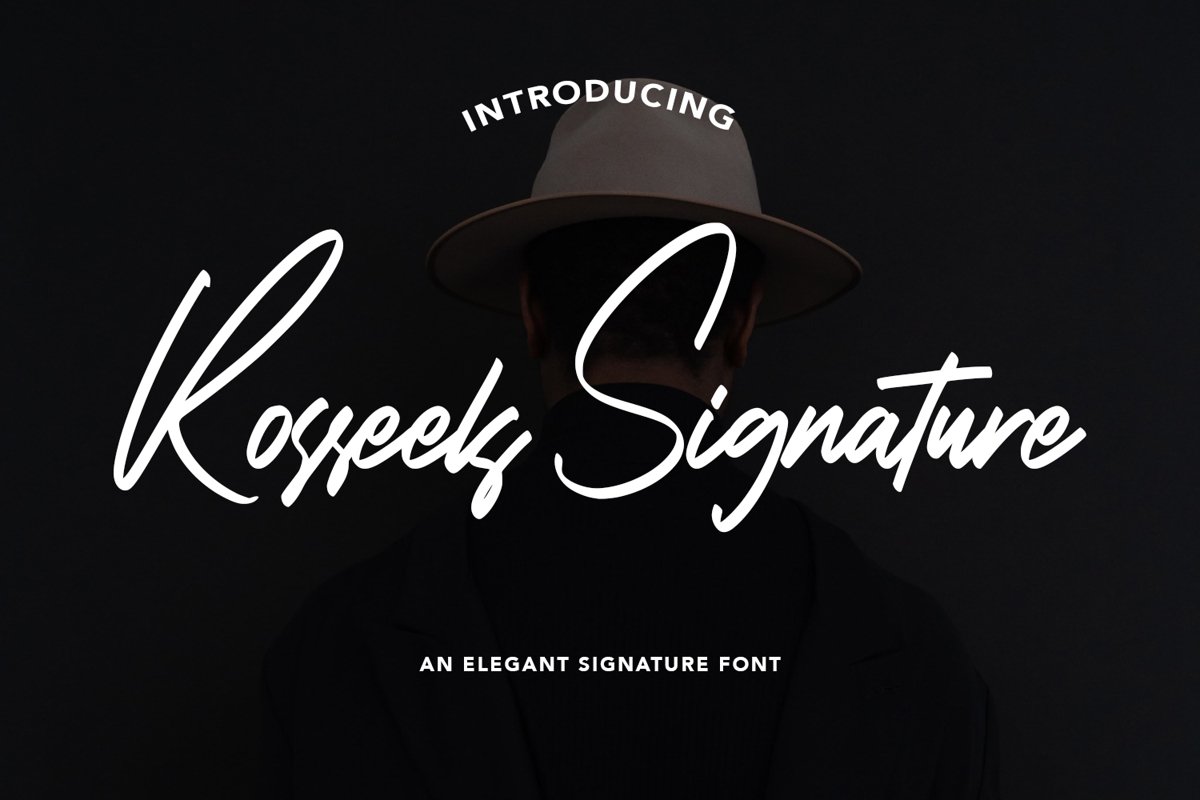
RosseelsSignature - Elegant Signature Font that contain lowercase, uppercase, symbol, and also support multi language. There’s a lot ligatures in this font. This Font also comes with ligatures, alternates and many more. this font suitable for fashion, branding, catalog and other design what you want.
RosseelsSignature